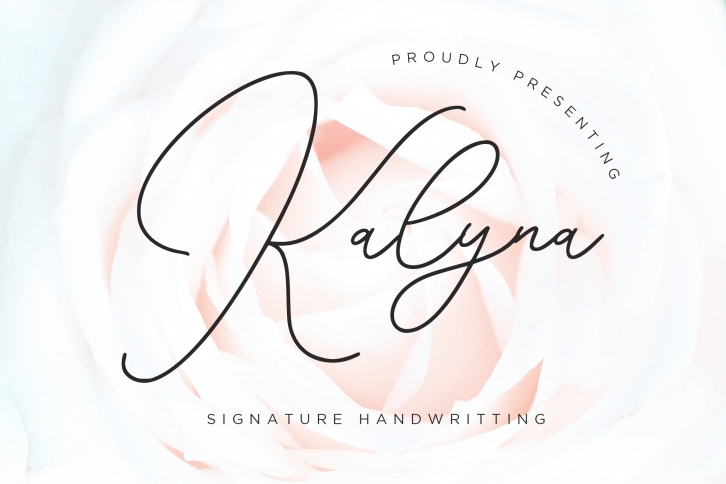
Kalyna Signature Handwriting is a trendy and unique font with an authentic style. It was designed by Creatype Studio and it's a great choice for creative people who need such a font. It was released on October 9, 2019 and the file size is 12.41 MB. Kalyna Signature Handwriting will add an organic vibe to any design idea!